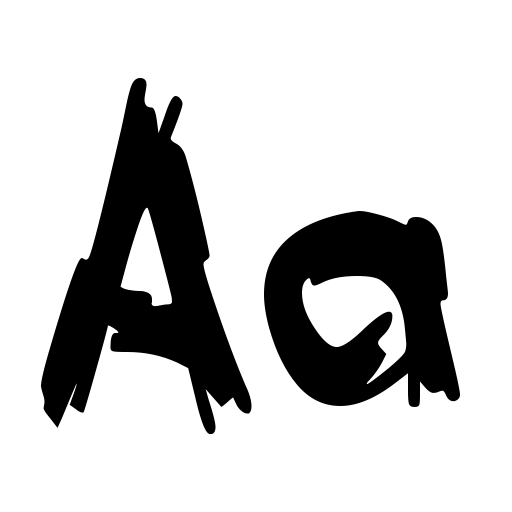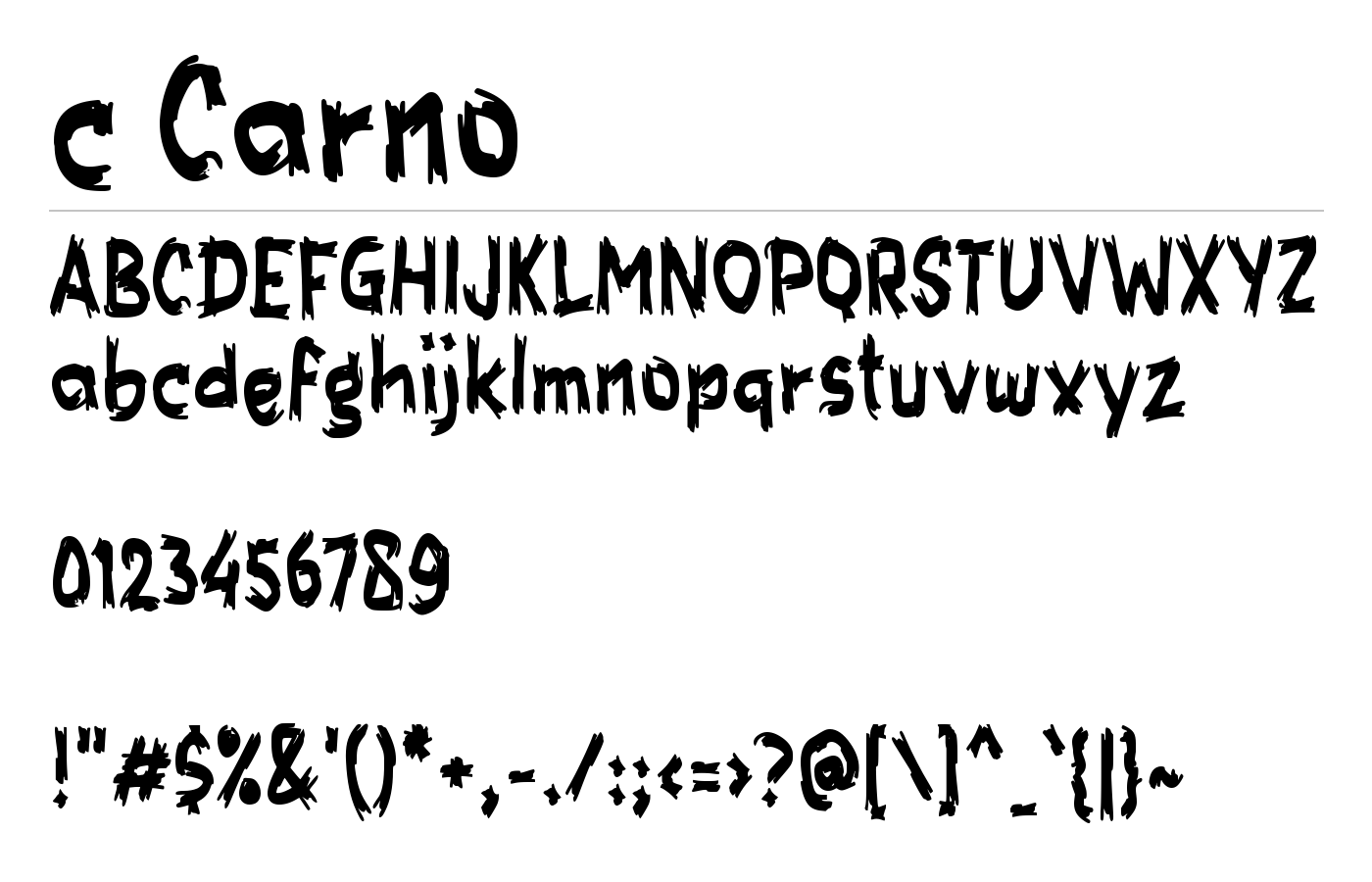
Carno is a bold, playful sans serif font with a hand-drawn, brushstroke style that brings a lively and informal feel to any design. Its uneven edges and rough texture create an energetic and creative vibe, making it perfect for youth-oriented branding, posters, or casual flyers where a fun, dynamic expression is desired. This font works well in headlines and display contexts where its quirky personality can stand out and grab attention.
c Carno Font